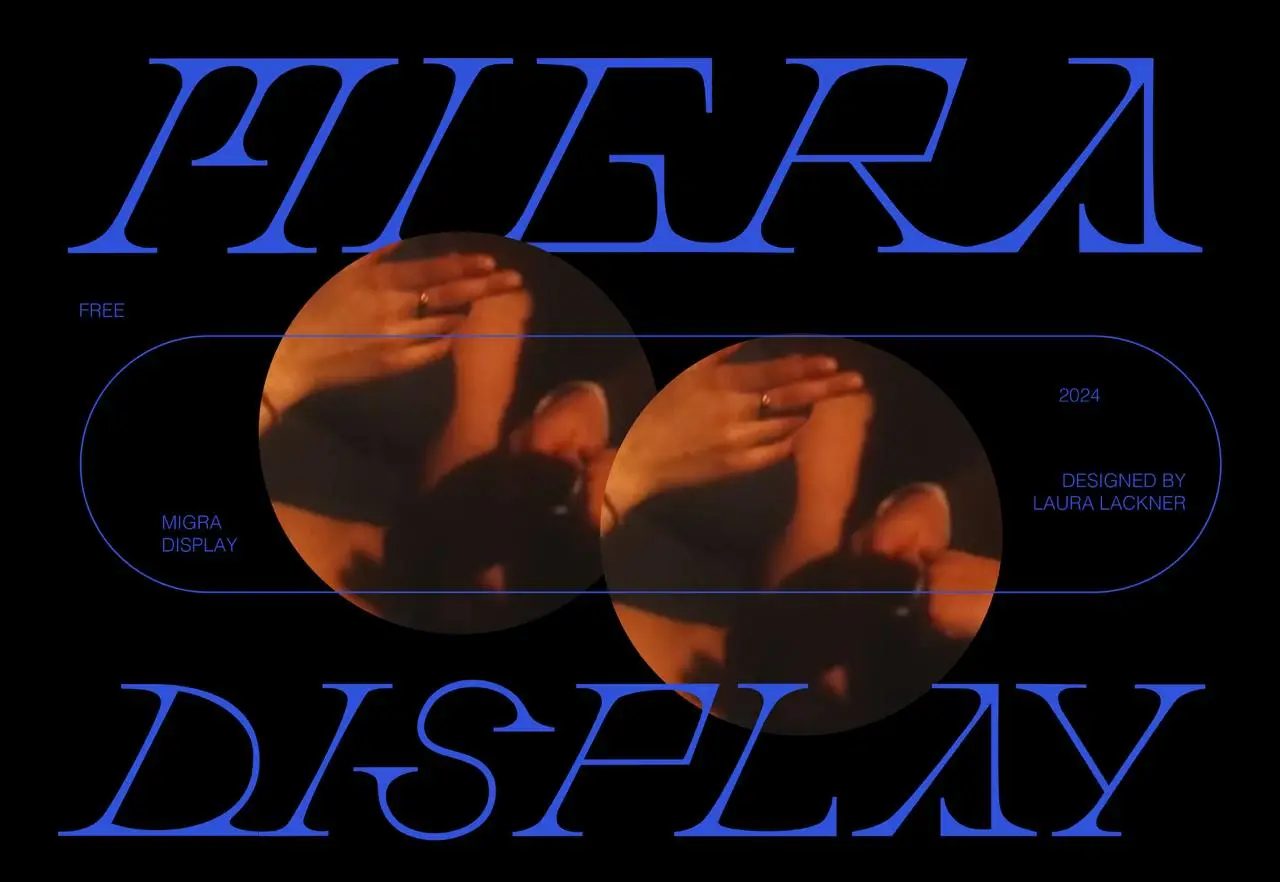
Migra Display Font: Embrace the Berliner Techno Vibe
Introducing the Migra Display Font, a captivating typeface designed exclusively with uppercase letters. Inspired by the vibrant Berliner techno culture, this font brings a unique and decorative aesthetic to your projects. Each character, from numbers to special symbols, features a distinctive slant, creating a dynamic visual impact.
Migra is not just a font; it’s a statement. Crafted by hand and then digitized, this font showcases a prickly vibe that sets it apart from conventional typefaces. Perfect for designers looking to add an edgy touch to their work, Migra is versatile enough for both personal and commercial use.
- ✅ Unique Uppercase Design → Stand out with a bold, eye-catching look.
- ✅ Hand-Drawn Aesthetic → Adds a personal touch to your typography.
- ✅ Inspired by Techno Culture → Perfect for music events, posters, and more.
- ✅ Slanted Characters → Enhances readability while maintaining style.
Why Choose This Font?
The Migra Display Font offers a unique blend of artistic flair and practicality. Its design is not only visually appealing but also functional for various applications, from branding to event promotions. Whether you’re a graphic designer, event planner, or simply someone who appreciates distinctive typography, Migra will elevate your creative projects.
| Character Set | Uppercase Letters, Numbers, Special Characters |
- Graphic Designers
- Event Planners
- Music Festival Organizers
- Branding Projects